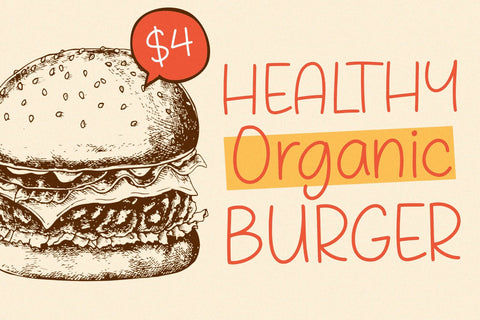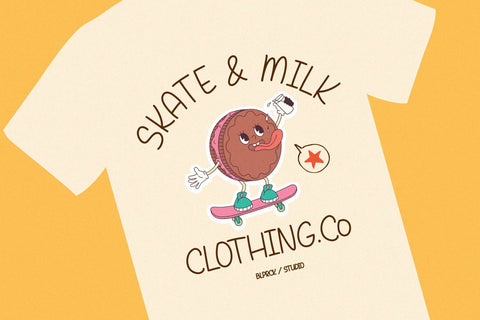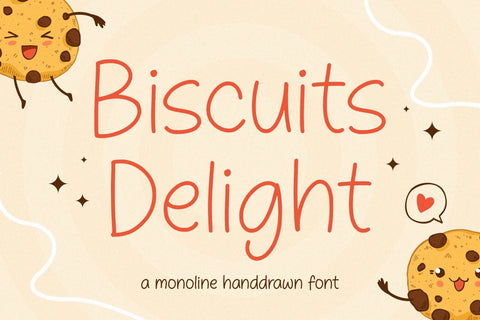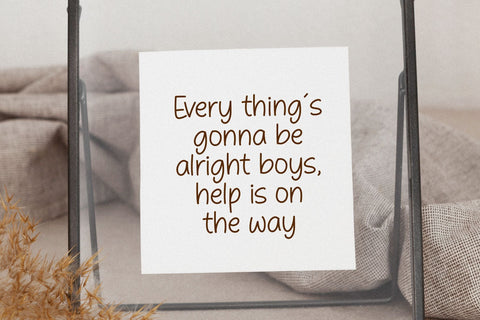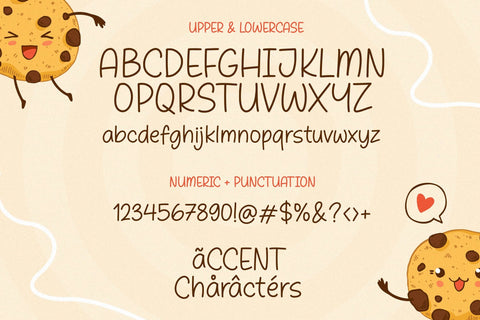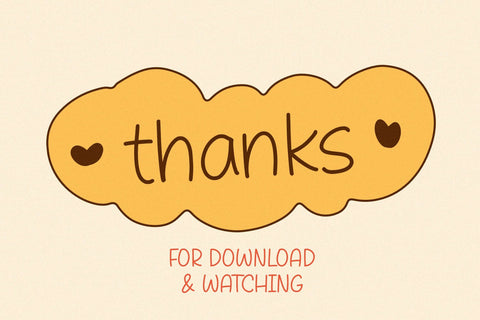
Biscuits Delight Font
Biscuits Delight is a monoline handdrawn font that's perfect for adding a personal touch to your design projects! With its natural, organic feel and unique character.
Crafted with care and attention to detail, this font is incredibly versatile and can be used for a range of design projects, including logos, branding, invitations, and more. Its modern, handwritten style gives it a unique character that's sure to make an impact.